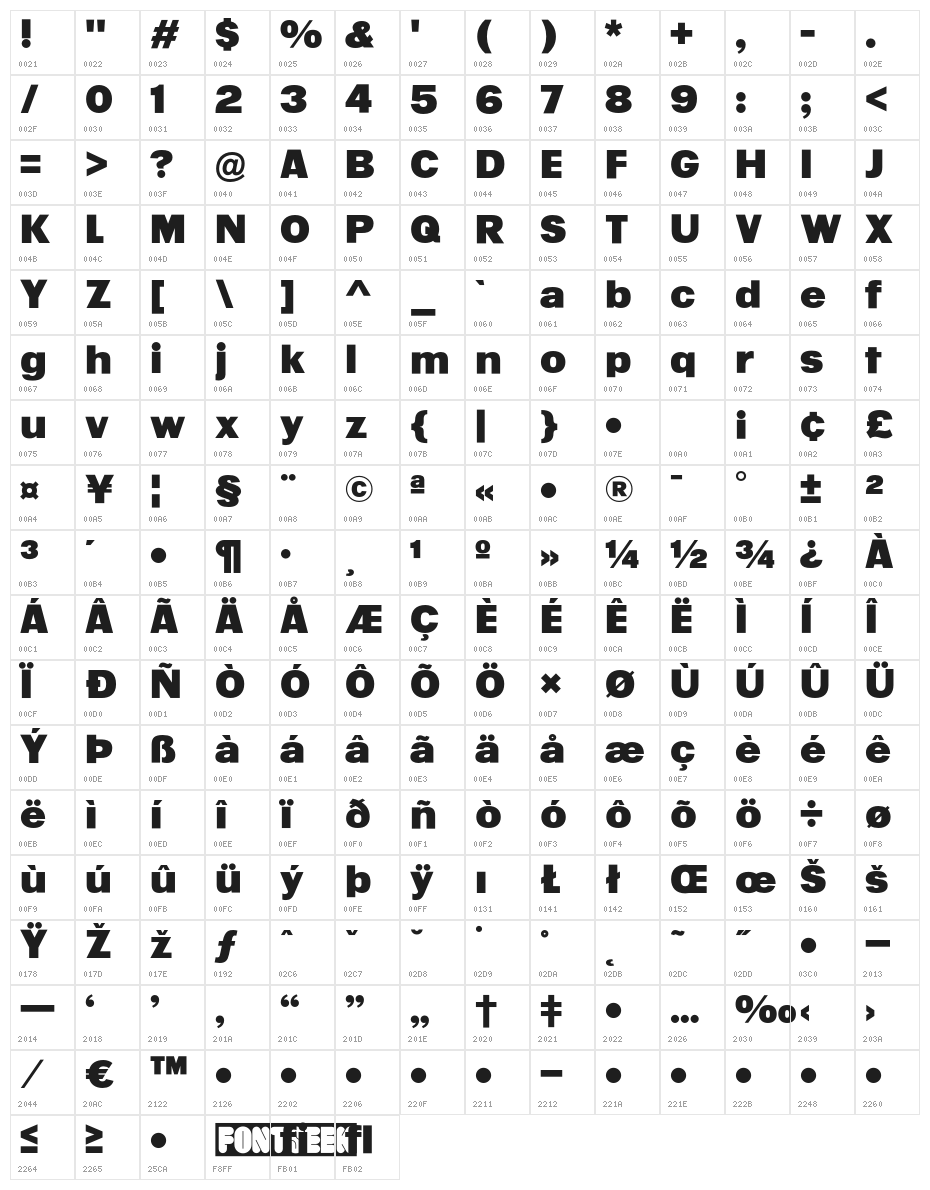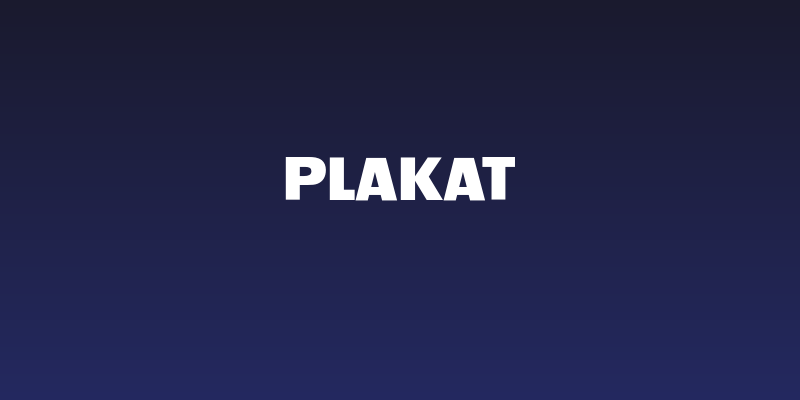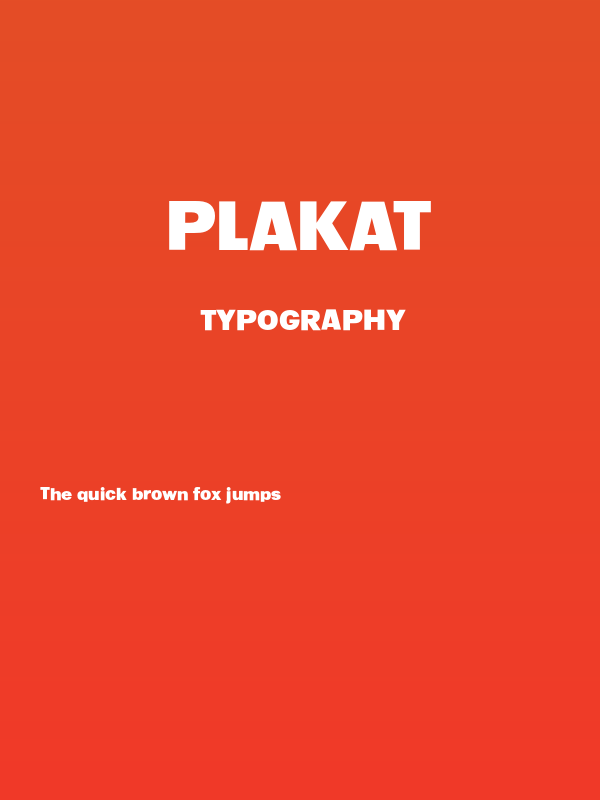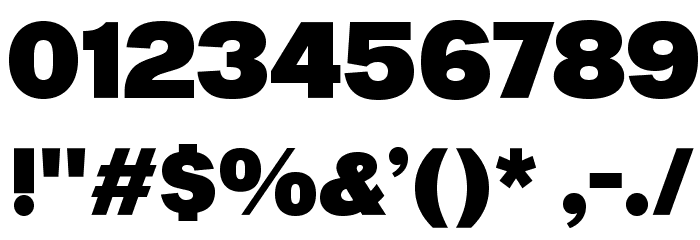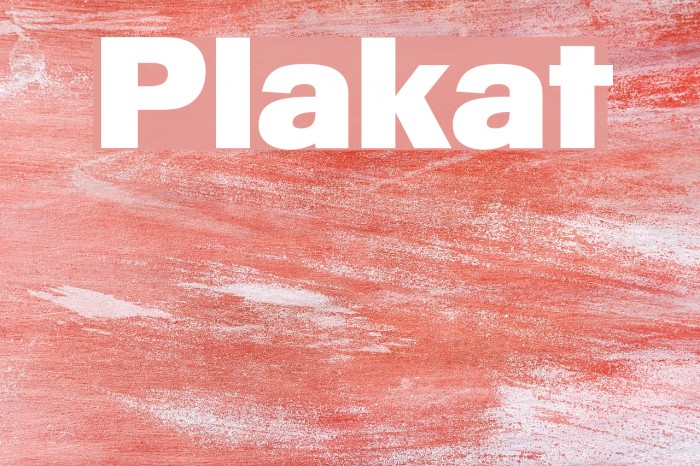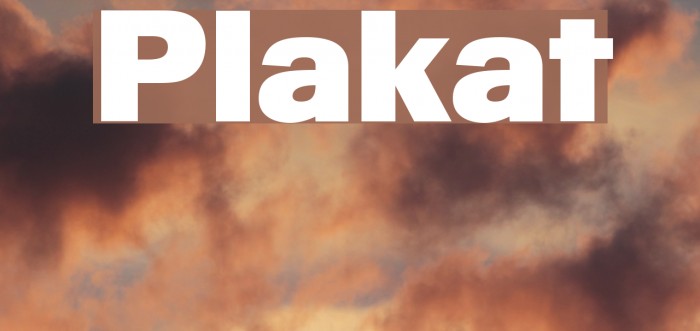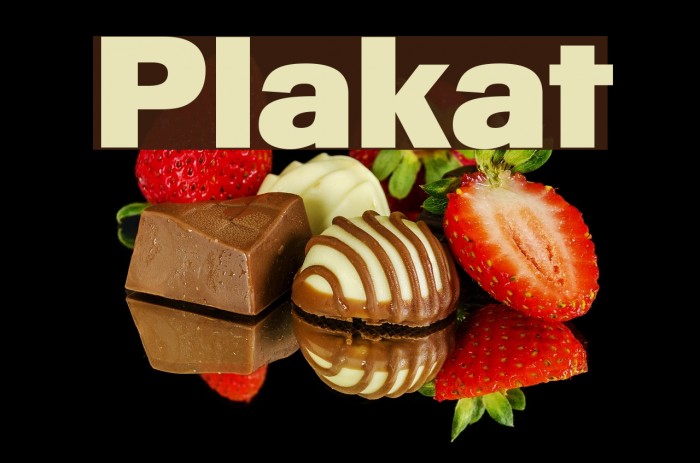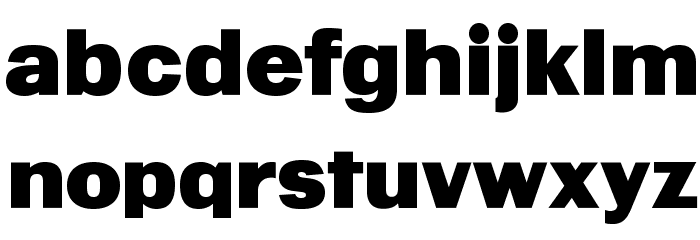
Plakat Font
Plakat Description
This bold and impactful font features a strong, geometric sans-serif style with uniform stroke widths that convey a sense of stability and modernity. The uppercase letters are particularly striking, with their clean lines and solid presence, making them ideal for attention-grabbing headlines. The lowercase letters maintain the same robust quality, ensuring consistency across different text cases. Numbers and special characters are equally bold, providing a cohesive look throughout. The font's simplicity and clarity make it highly legible, even at smaller sizes, while its boldness ensures it stands out in any design context.
| Proposed Projects | Ideal for posters, headlines, branding, and advertising where impact and clarity are essential. |